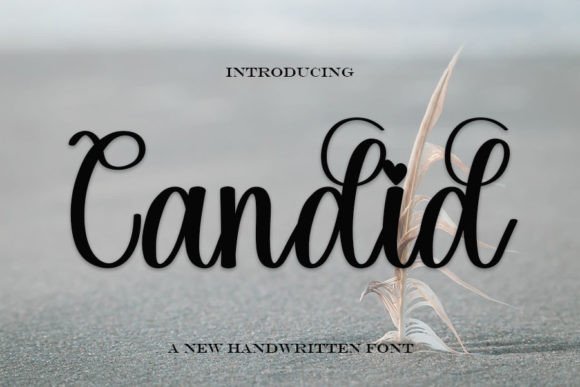
The Candid Font: A Timeless Beauty for Your Designs
Recently, I was working on a project for a client who wanted a elegant and sophisticated look. I tried font after font, but nothing seemed quite right. That was until I stumbled upon the Candid font. **It’s a game-changer**. With its neat and beautiful handwritten style, described by an elegant touch, I knew I had found the one.
First Impressions: A Love Affair with Candid
The Candid font is a neat and beautiful handwritten font that exudes elegance and sophistication. Its incredibly distinct and timeless style makes it perfect for a wide range of projects, from wedding invitations to branding and packaging. I was immediately drawn to its:
- ✨ Elegant and refined appearance
- 💫 Unique and distinctive style that stands out from the crowd
- 🎨 Versatility – it can be used for both digital and print projects
A Few Quirks to Consider
While I absolutely adore the Candid font, there are a few things to keep in mind:
- ⚠️ It can be a bit overused, so make sure to use it sparingly and in context
The Story Behind Candid
The Candid font was designed by a talented type designer who wanted to create a font that would evoke a sense of elegance and sophistication. Inspired by classic calligraphy and handwritten scripts, Candid is a modern take on traditional typography.
| Font Name | Candid Font |
| What is the Candid font best used for? | The Candid font is perfect for designs that require an elegant and sophisticated look, such as wedding invitations, branding, and packaging. |
| Is the Candid font suitable for body text? | While Candid is highly legible, it’s best used for headings and titles. For body text, you may want to choose a more traditional font. |
| Is the Candid font available in different weights or styles? | Yes, the Candid font comes in a range of weights and styles, making it versatile and adaptable to different design needs. |